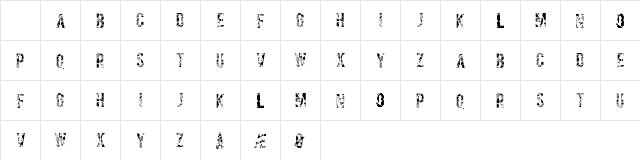
SALVAGE is a composed and adaptable typeface that performs quietly and consistently across a wide range of design contexts.
Pro Tip: Use SALVAGE in both headline and body roles to test its range before committing to a single application.